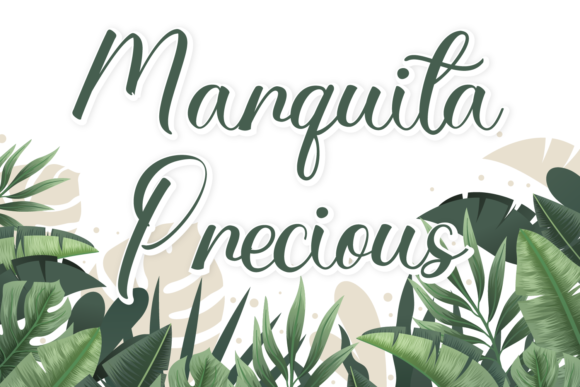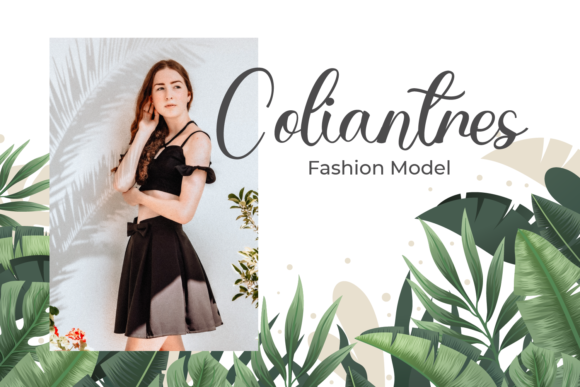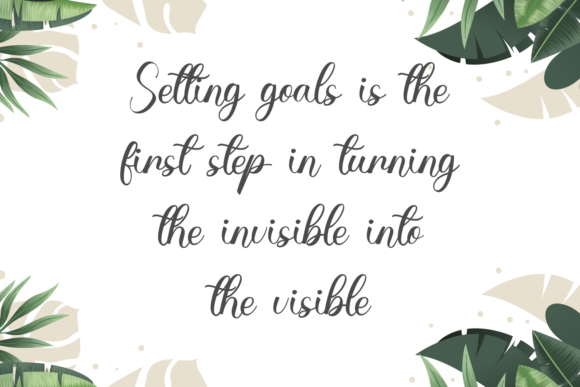
Marquita Precious Font
About Marquita Precious Font
Marquita Precious is an elegant script font with a contemporary atmosphere and impeccable form, inspired by timeless classic calligraphy. Not too thin and not too thick, balanced and varied, this font was designed to enhance the beauty of your projects.